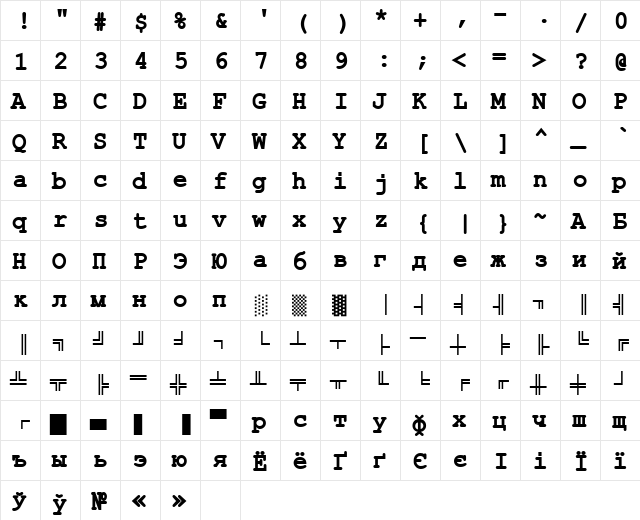
ER Kurier 866 Bold
Design Context for ER Kurier 866 Typeface
ER Kurier 866 offers clean, dependable letterforms without strong stylistic allegiance, making it a practical choice for designers who need flexibility. Its bold stroke weight gives it real presence on the page.